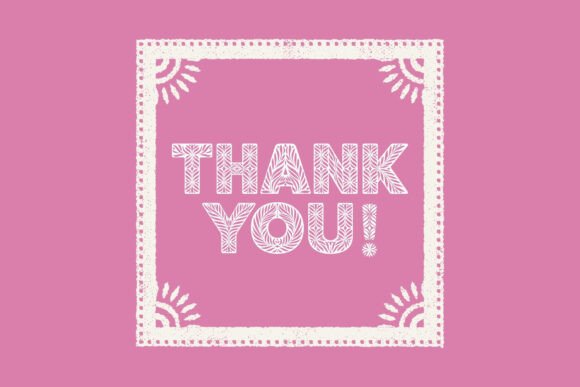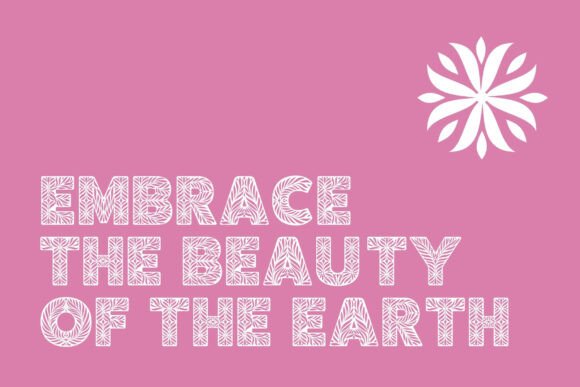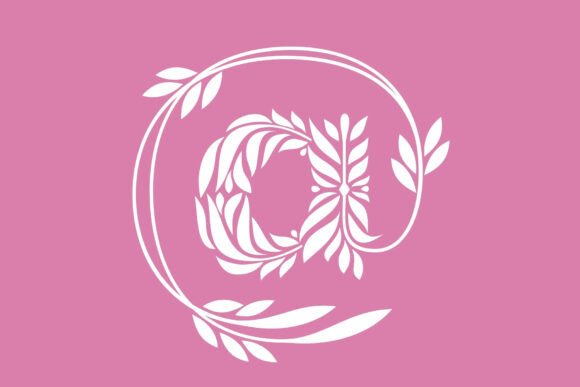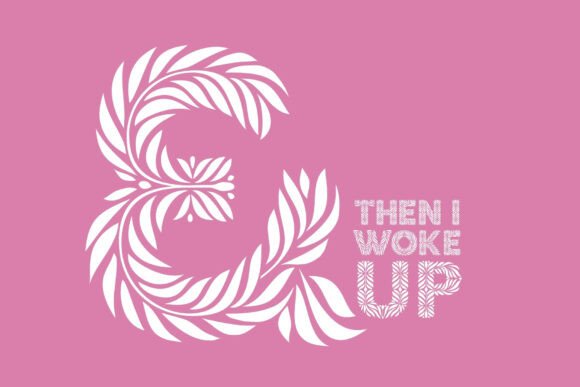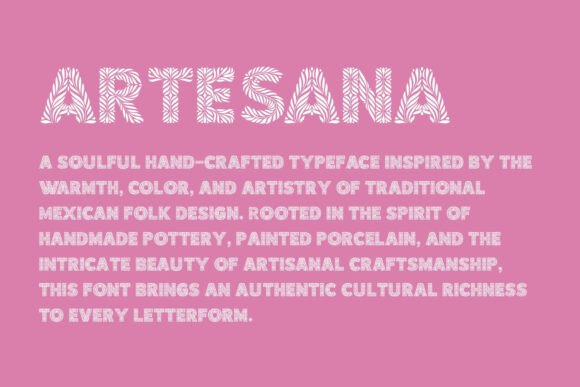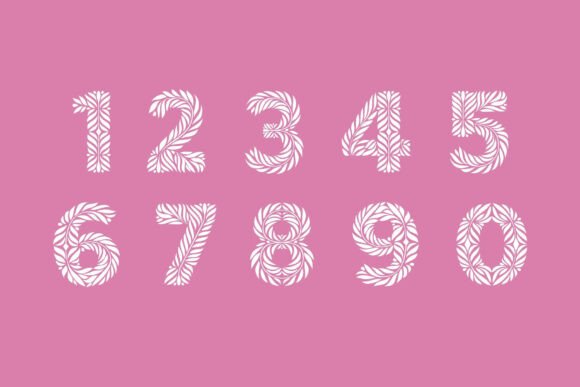
Discover the Authentic Charm of Artesana Font
Are you a designer or crafter looking for a typeface that embodies the warmth and artistry of traditional Mexican folk design? Look no further than Artesana Font, a soulful hand-crafted font that brings an authentic cultural richness to every letterform. Inspired by the intricate beauty of handmade pottery, painted porcelain, and artisanal craftsmanship, Artesana is the perfect choice for projects that require a touch of heritage and festivity.
The Inspiration Behind Artesana
Artesana Font is rooted in the spirit of traditional Mexican folk design, where handmade crafts and artisanal techniques have been passed down through generations. The font’s creator drew inspiration from the vibrant colors, organic curves, and decorative strokes that characterize Mexican folk art. From the intricate patterns on handmade pottery to the delicate designs on painted porcelain, every element of Artesana Font is infused with the essence of heritage crafts.
What Makes Artesana Unique
Artesana Font stands out from other typefaces due to its unique blend of organic curves, decorative strokes, and folk-inspired detailing. Each character feels lovingly shaped by hand, capturing the essence of artisanal craftsmanship and the expressive artistry found throughout Mexico’s vibrant visual culture. The font’s unmistakable charm lies in its imperfections and quirks, which evoke a sense of human touch and craftsmanship.
Key Features of Artesana Font
- Hand-crafted letterforms: Each character is carefully crafted to reflect the imperfections and uniqueness of handmade crafts.
- Organic curves: Artesana’s curves are smooth and fluid, evoking the natural shapes found in traditional Mexican folk design.
- Decorative strokes: The font features decorative strokes and flourishes that add to its festive and celebratory feel.
- Folk-inspired detailing: Intricate patterns and details inspired by Mexican folk art add depth and richness to every letterform.
Artesana Font is an excellent choice for designers and crafters looking to add a touch of authenticity and cultural richness to their projects. Whether you’re working on a branding project, packaging design, or crafting a handmade product, Artesana Font is sure to bring a unique and eye-catching element to your work.
Use Cases for Artesana Font
- Branding and packaging: Artesana Font is perfect for brands looking to convey a sense of heritage and tradition.
- Handmade products: Add a touch of artisanal charm to your handmade products, such as ceramics, textiles, or jewelry.
- Stationery and invitations: Artesana Font is ideal for creating unique and festive stationery, invitations, and greeting cards.
- Digital design: Use Artesana Font in digital designs, such as social media graphics, blog headers, and website titles, to add a touch of personality and whimsy.
Artesana Font is a unique and captivating typeface that embodies the warmth, color, and artistry of traditional Mexican folk design. With its hand-crafted letterforms, organic curves, and decorative strokes, Artesana is the perfect choice for designers and crafters looking to add a touch of authenticity and cultural richness to their projects. Whether you’re working on a branding project, packaging design, or handmade product, Artesana Font is sure to bring a sense of heritage and festivity to your work.